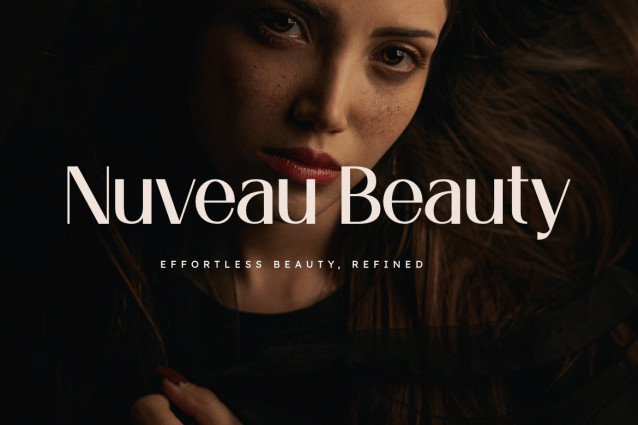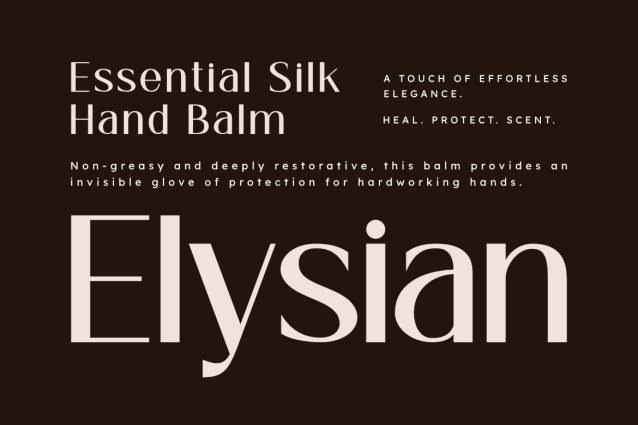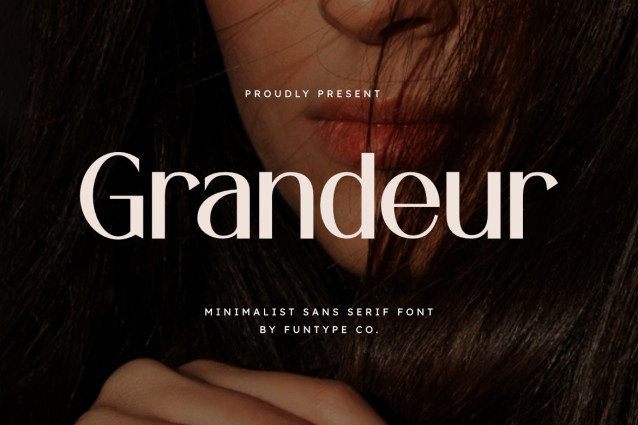
Grandeur Font
Grandeur Font is a sophisticated and minimalist sans serif font, thoughtfully designed to capture the essence of luxury charm and contemporary storytelling. With its balanced proportions and clean geometric lines, Grandeur offers a professional aesthetic that brings a touch of refined authority to any creative project.
This font is the ideal choice for designers looking to add a professional yet high-impact touch to their work. Whether you are crafting a striking lifestyle brand identity, a sleek fashion logo, or elegant editorial layouts, Grandeur provides a seamless blend of modern minimalism and timeless power.